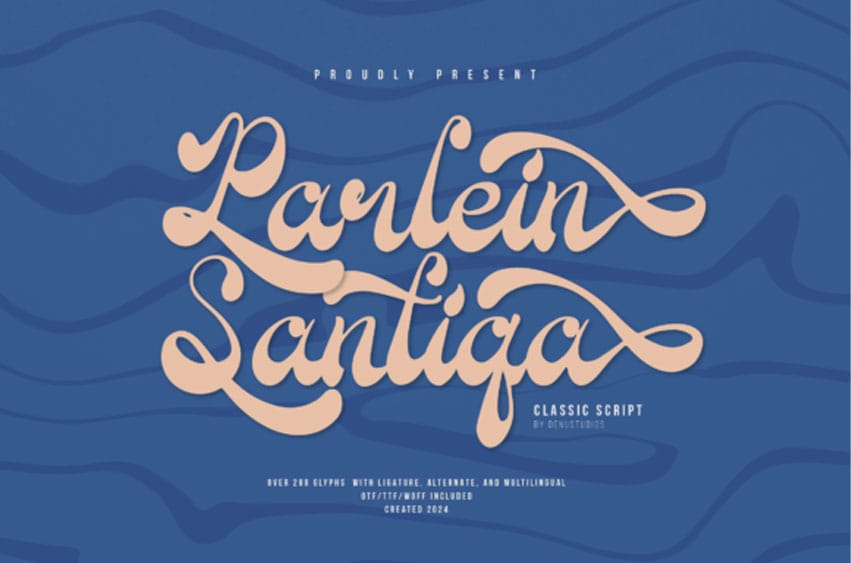
Parlein Santiqa Font is a beautiful and elegant script font in a classic style. Its flowing, hand-drawn letters give a sense of sophistication and charm, making it perfect for invitations, logos, and other creative projects.
The script has a timeless feel, blending traditional calligraphy with modern touches.